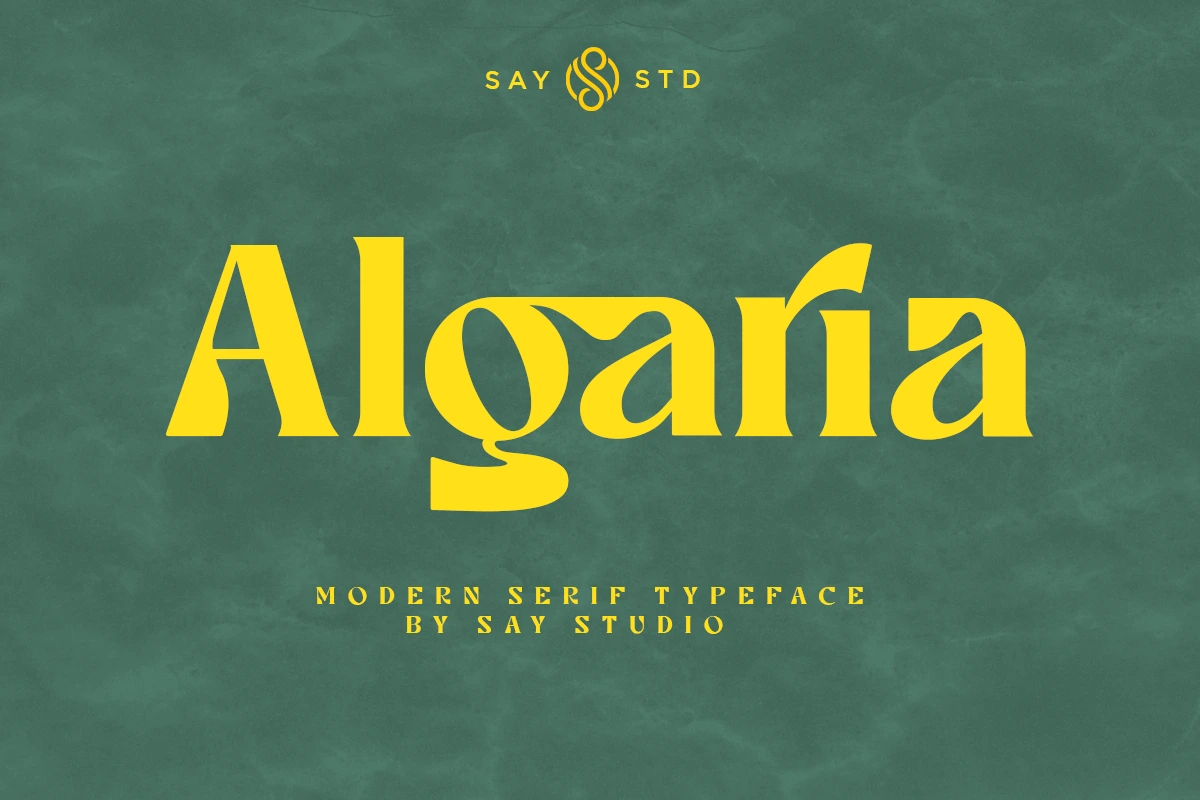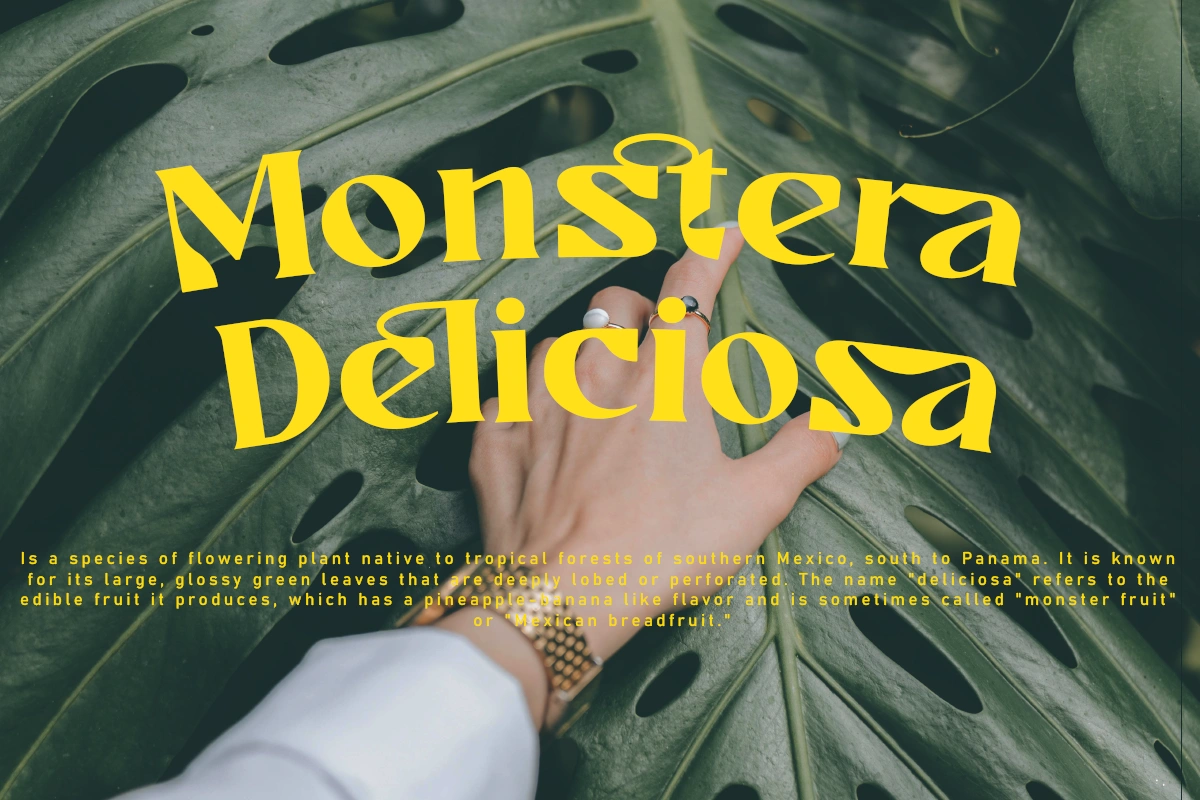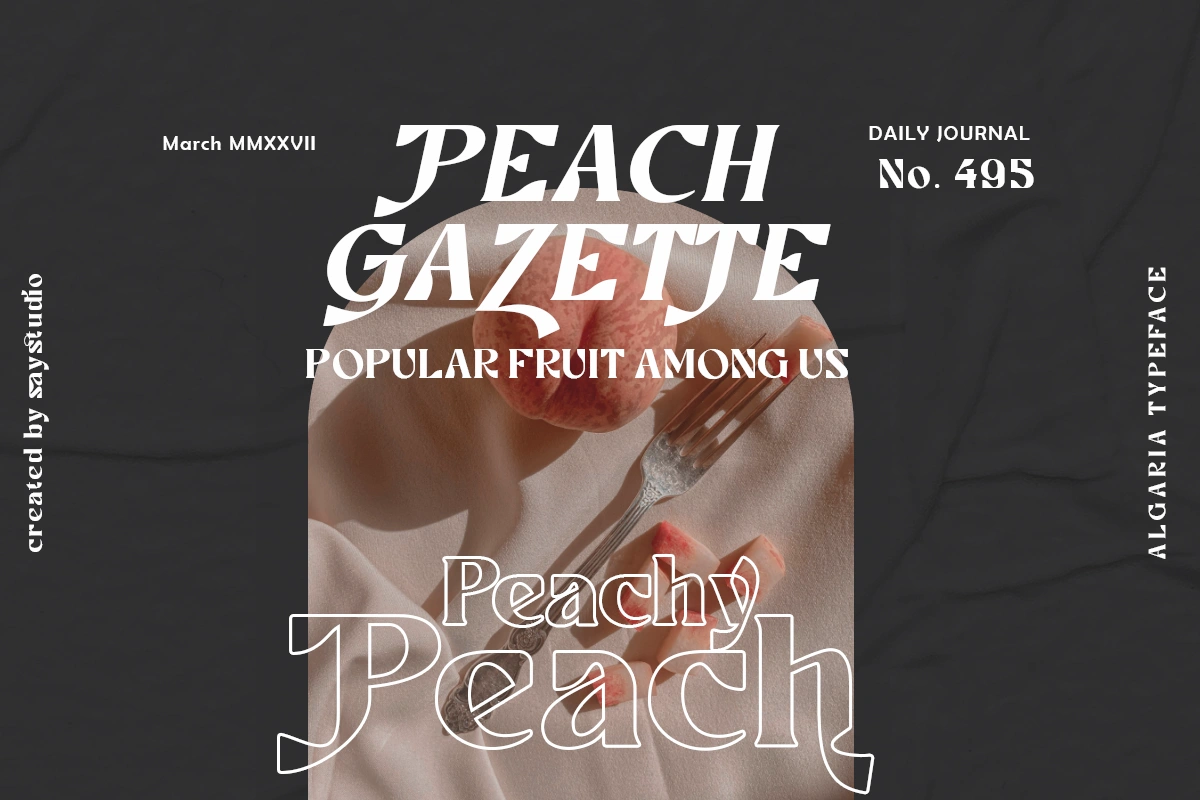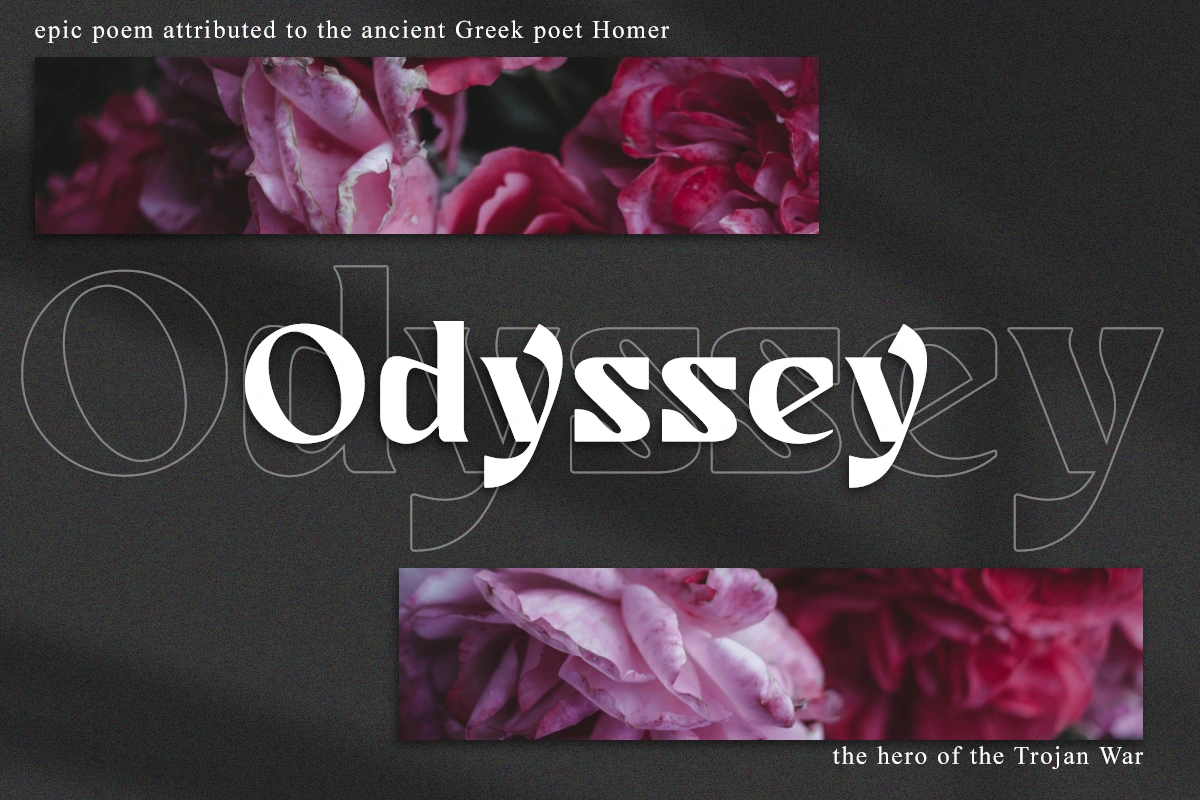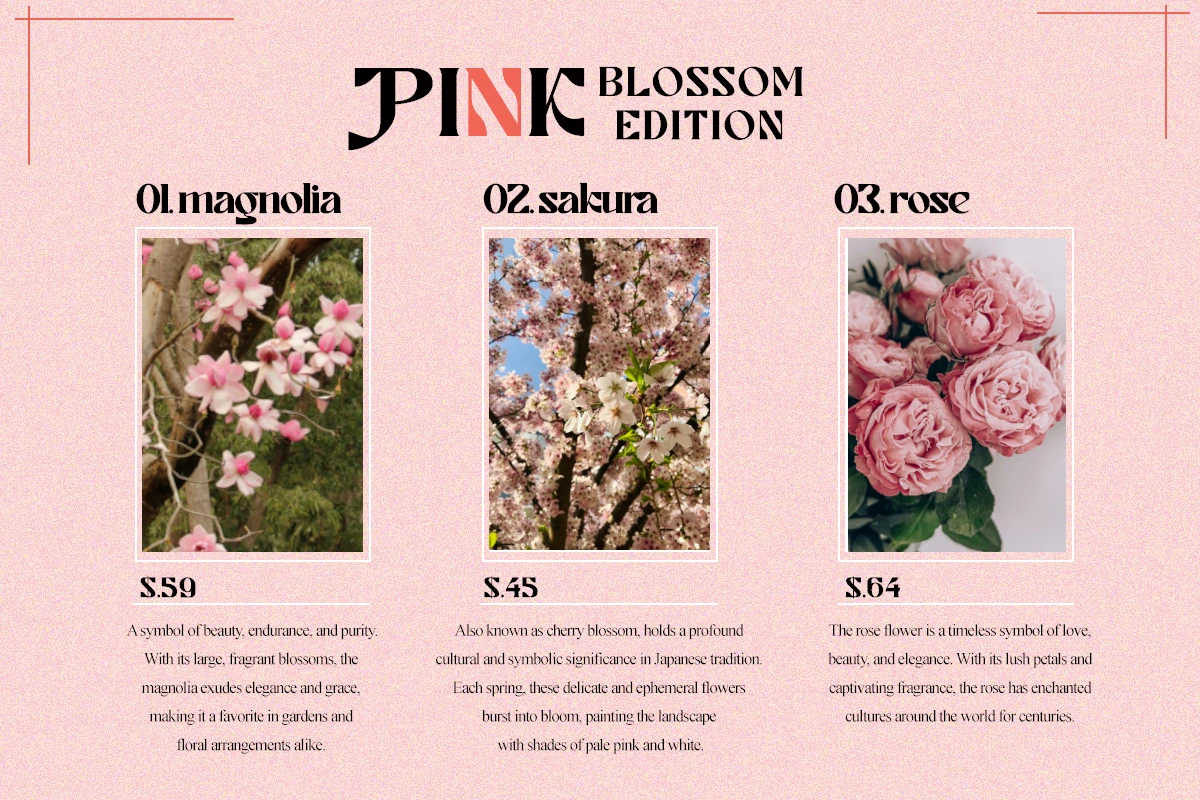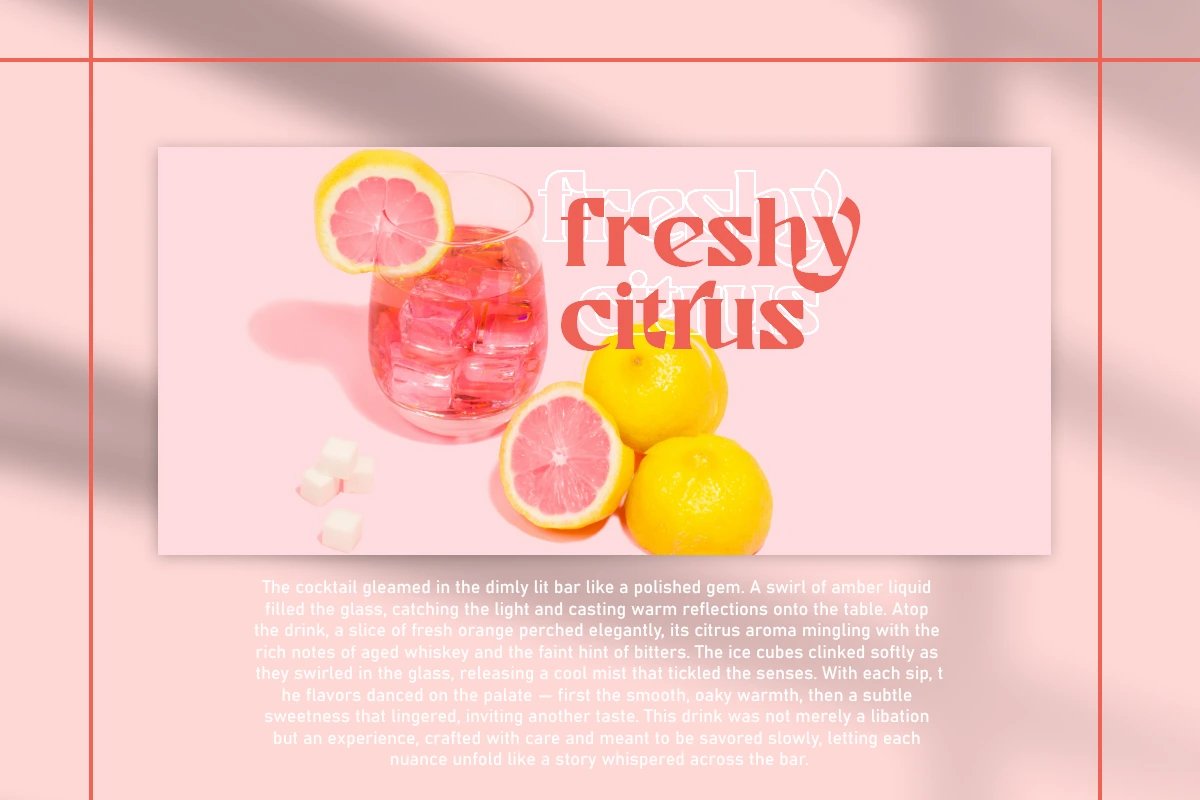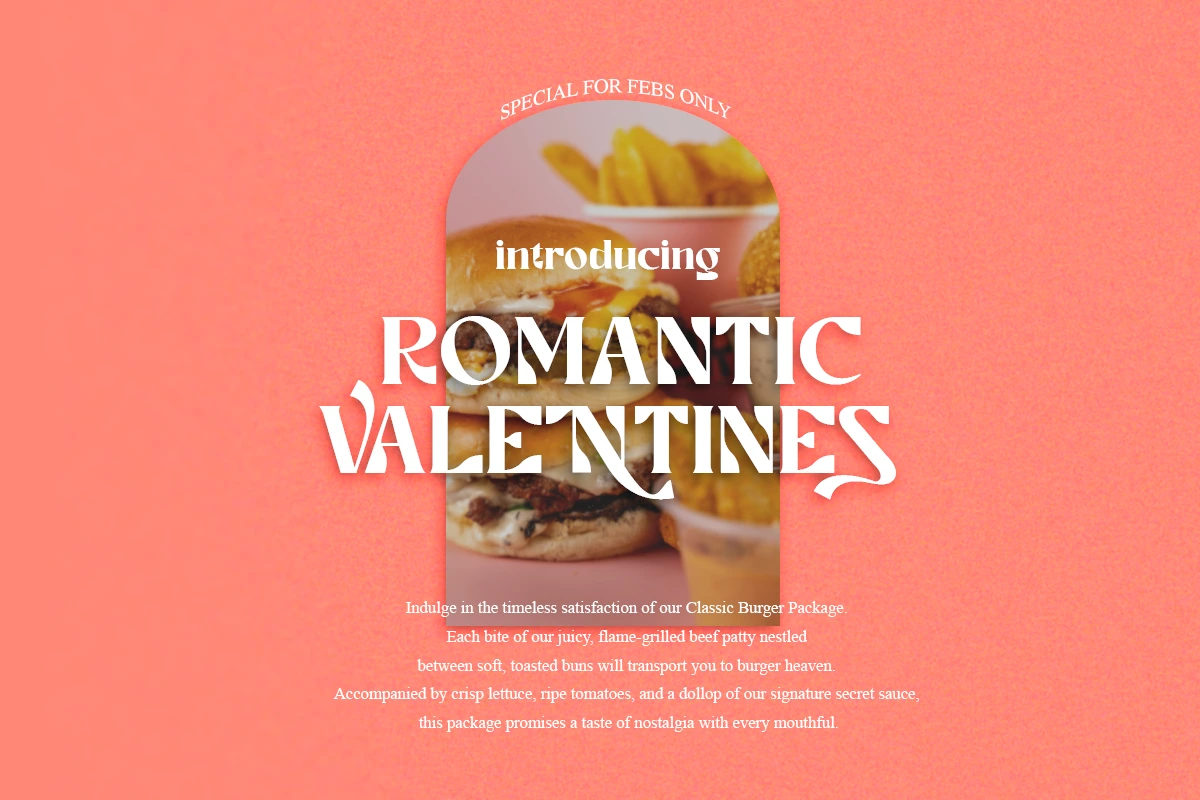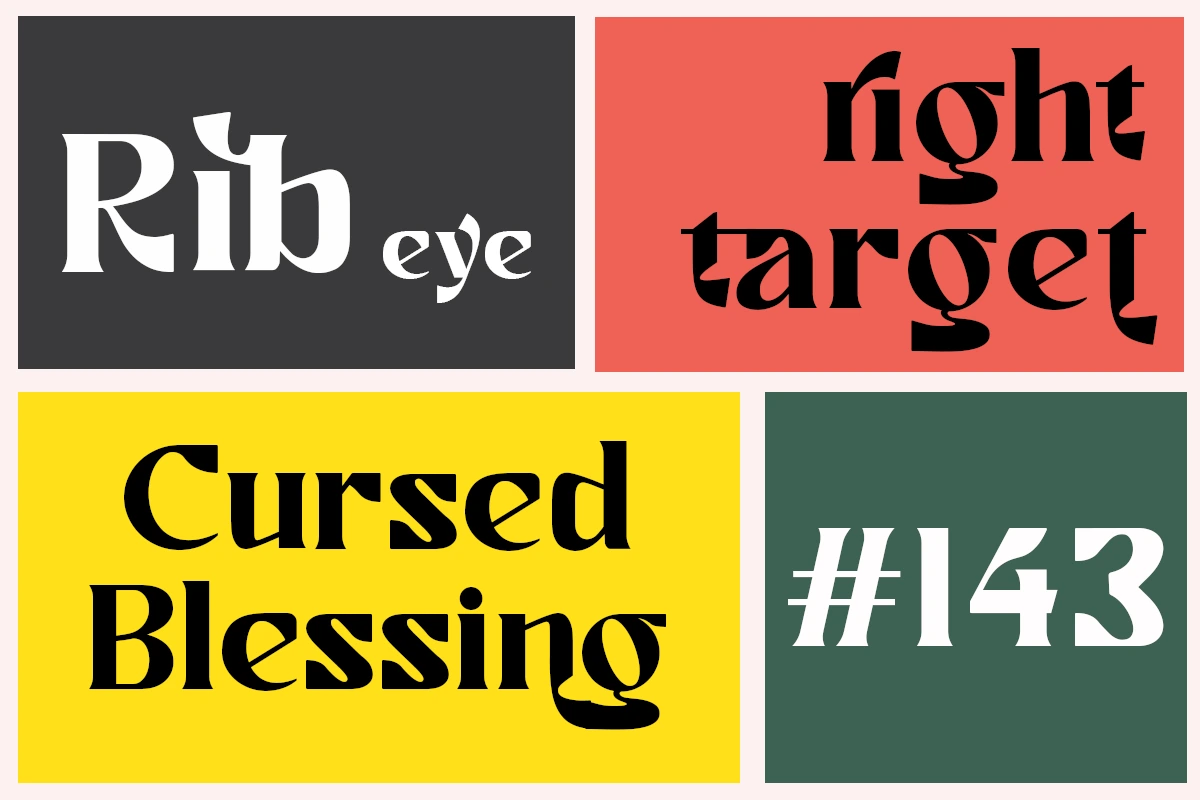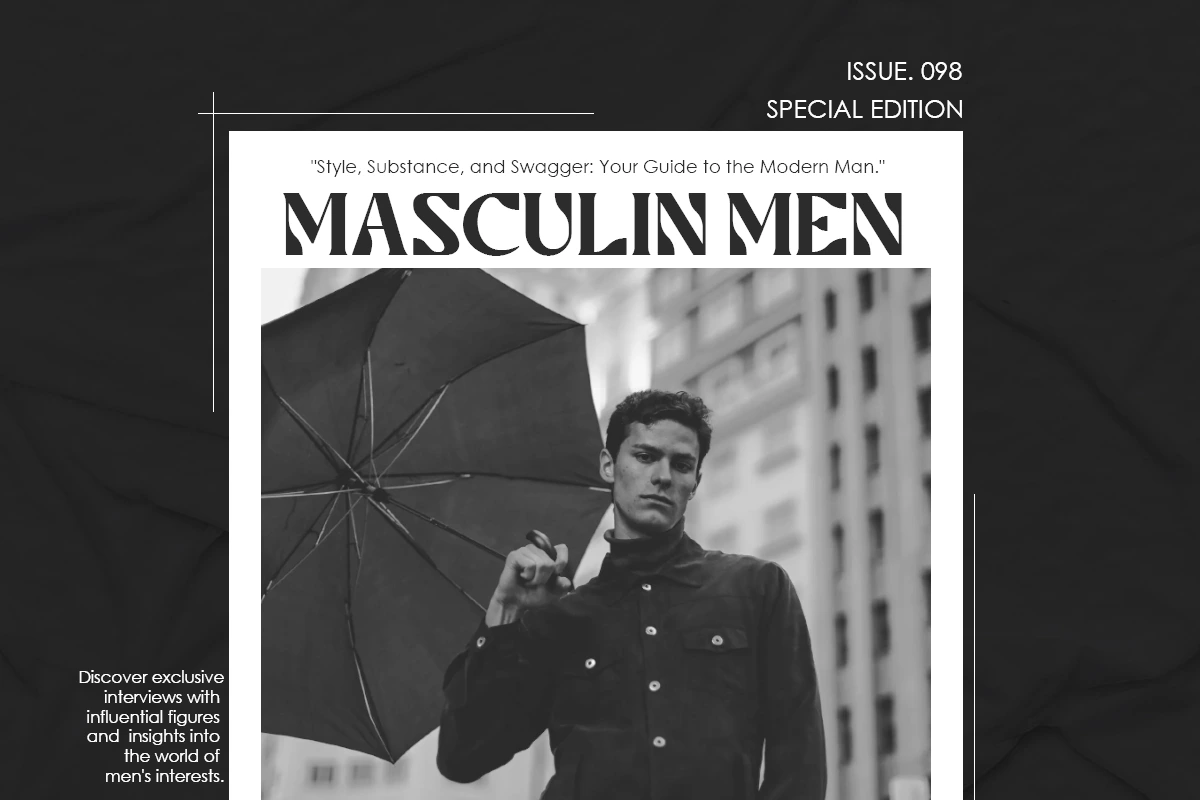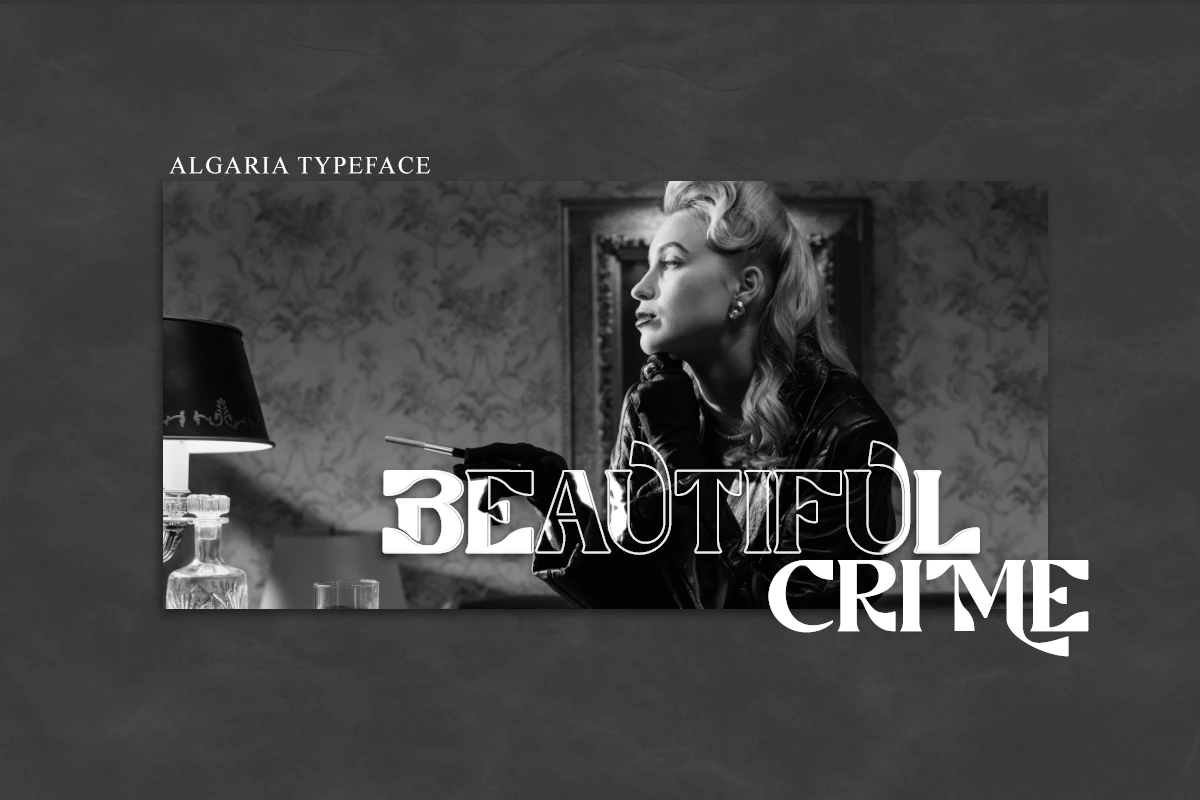
Algaria – Modern Serif Typeface Font
Algaria is a modern bold serif display font that combines strength and elegance in every letter. Its striking, well-defined serifs and strong lines make it ideal for impactful headlines, branding, and editorial designs. This font effortlessly conveys authority and sophistication, enhancing any project with a powerful presence.